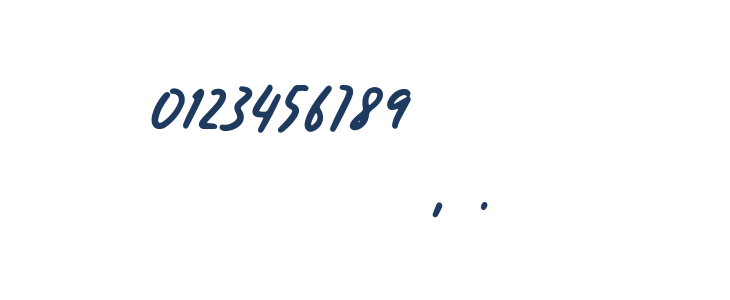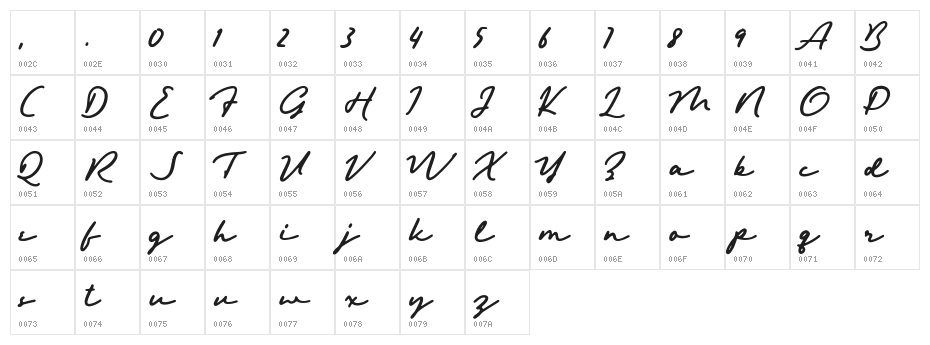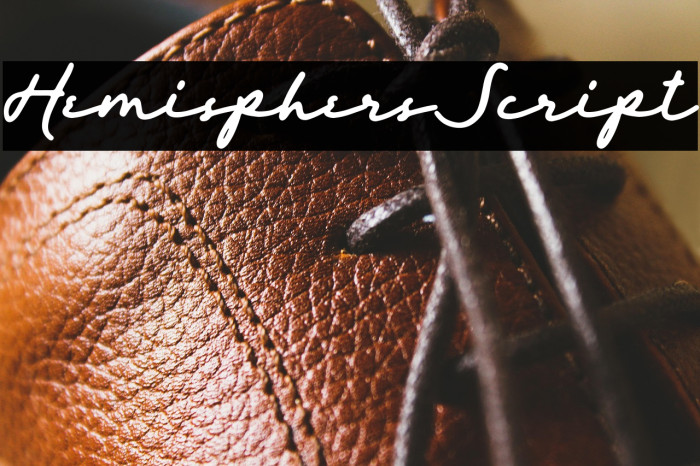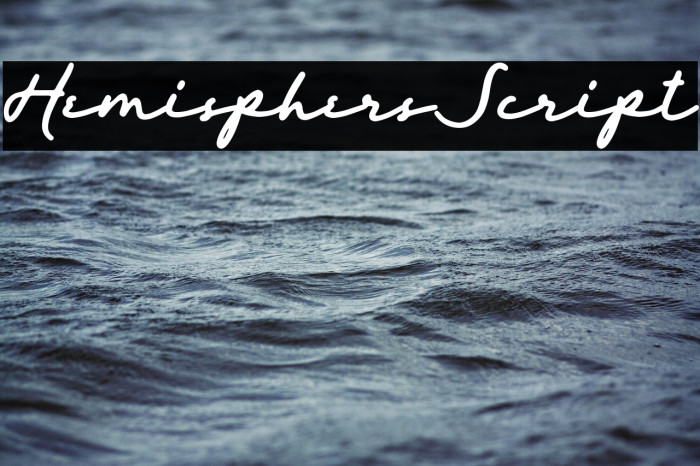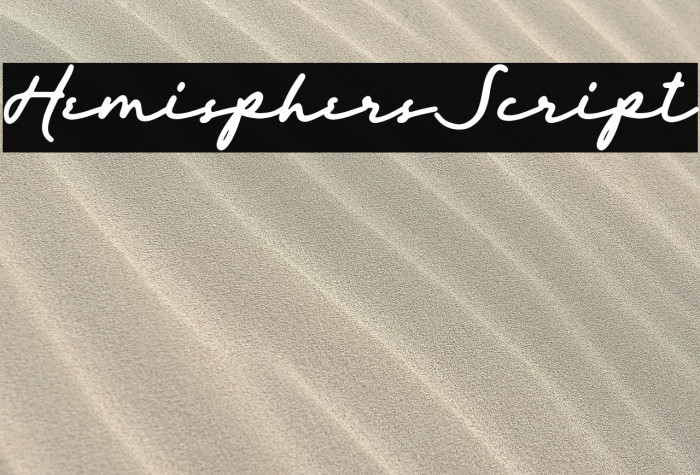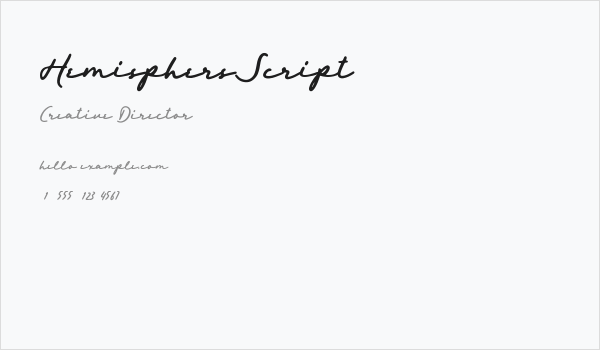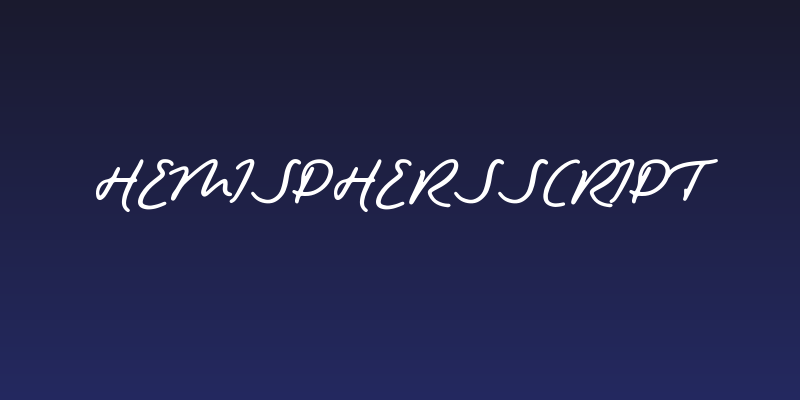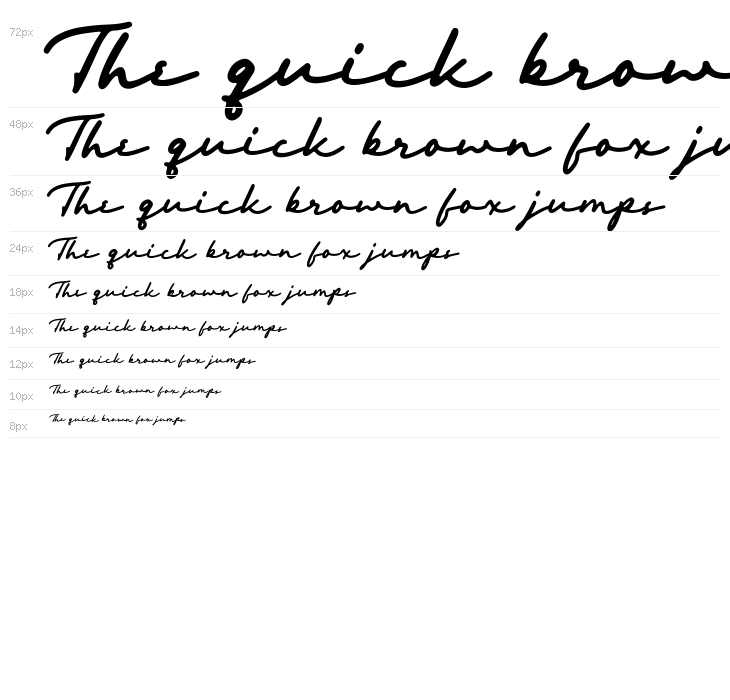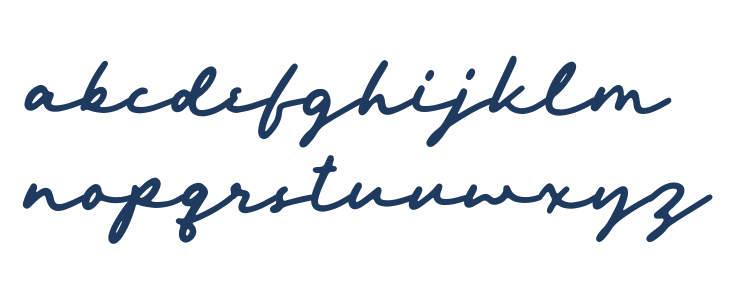
HemisphersScript Font
HemisphersScript Description
This font features a flowing, cursive style that mimics elegant handwriting. The characters are connected, creating a seamless and fluid appearance. The uppercase letters are bold and slightly slanted, while the lowercase letters maintain a consistent flow with gentle curves. The numerals are distinct yet harmonious with the overall script style. This font exudes a sense of sophistication and grace, making it ideal for projects that require a personal touch or a classic, refined aesthetic.